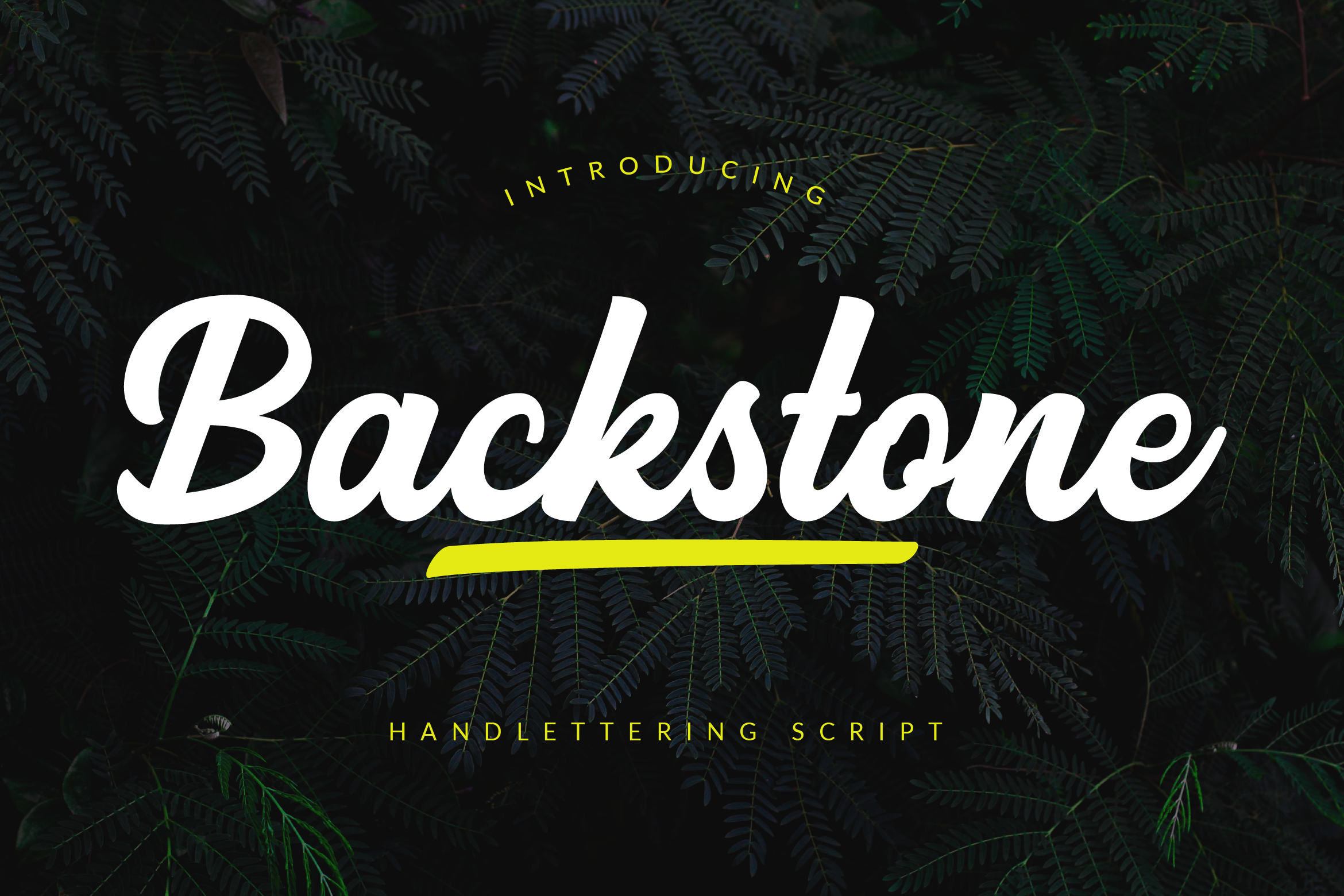
Backstone Font
About Backstone
Backstone is a daring handwritten font created with brush pen strokes. This bold font will beautify and emphasize your design. Add it confidently to your projects, and you will love the results.